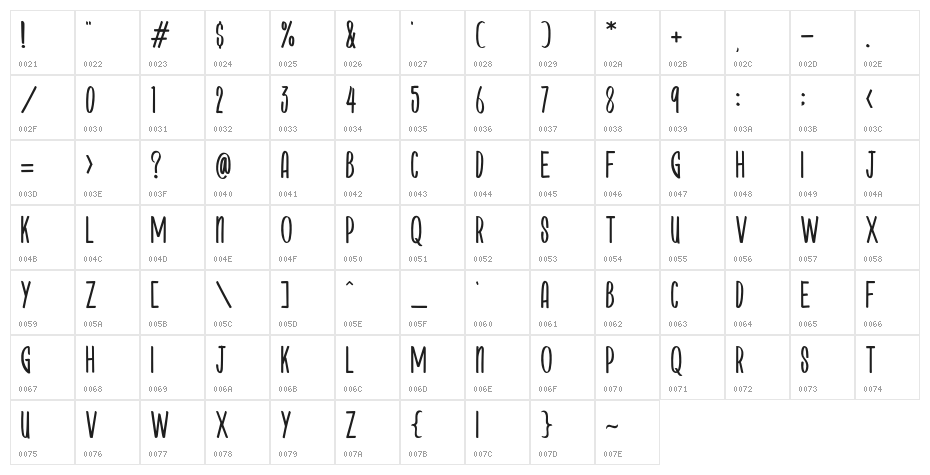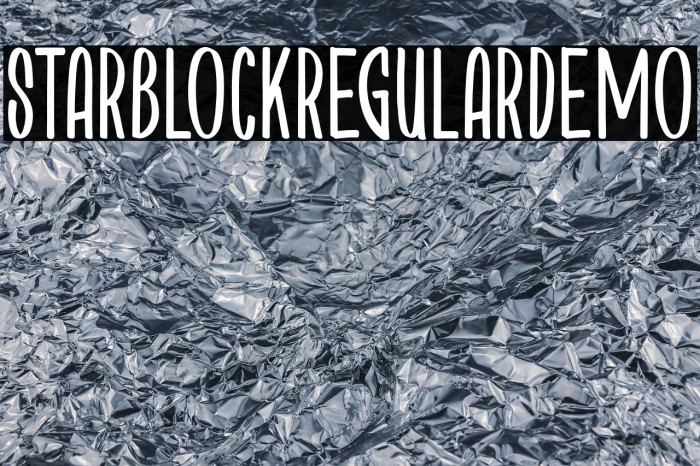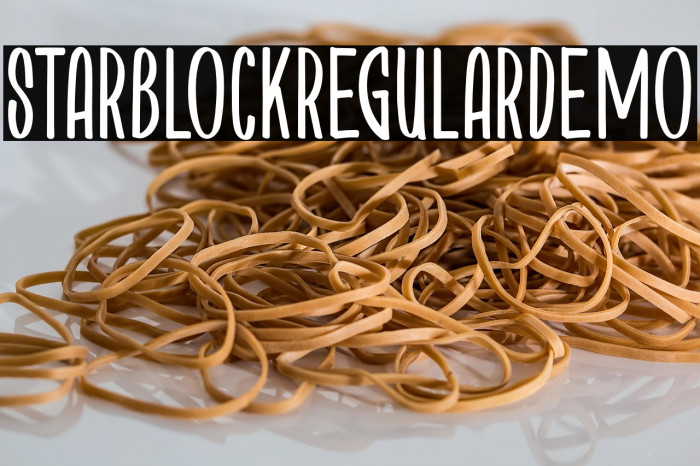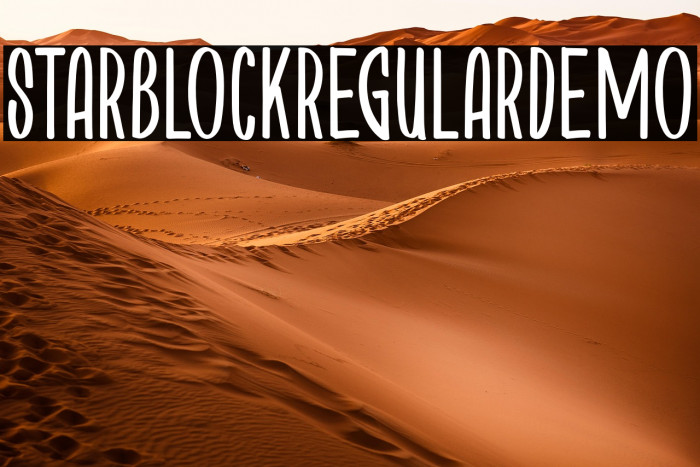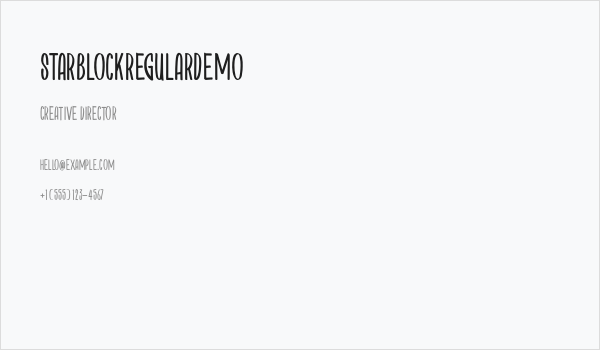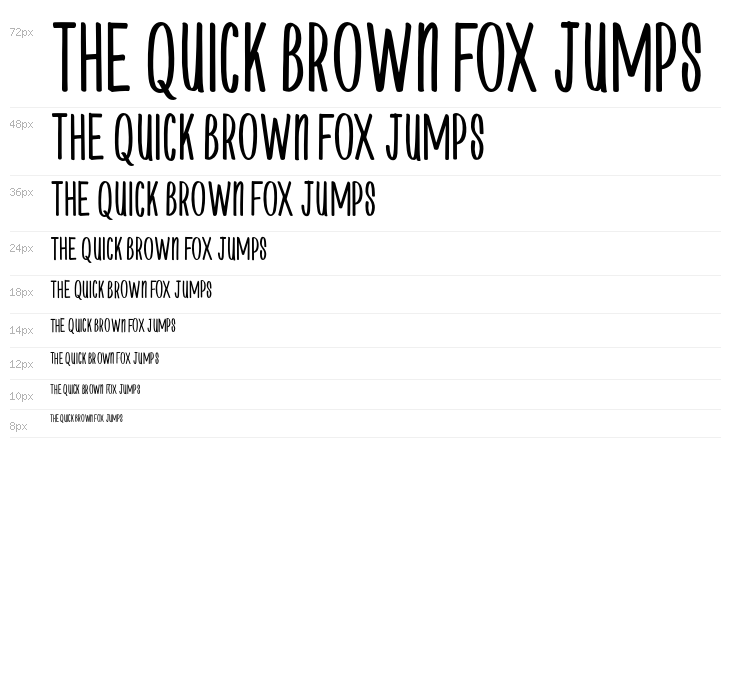
StarblockRegularDemo Font
StarblockRegularDemo Description
This font features a playful and casual handwritten style with elongated, narrow characters. The letters are slightly irregular, giving them a whimsical and friendly appearance. The strokes are consistent in thickness, providing a uniform look across all characters. The font includes both uppercase and lowercase letters, numerals, and a variety of special characters, making it versatile for different uses. Its informal style is suitable for projects that require a personal touch or a relaxed vibe.
| Use Case | Headlines, Informal text, Branding |
| Proposed Projects | Ideal for greeting cards, children's books, casual branding, and social media graphics. |